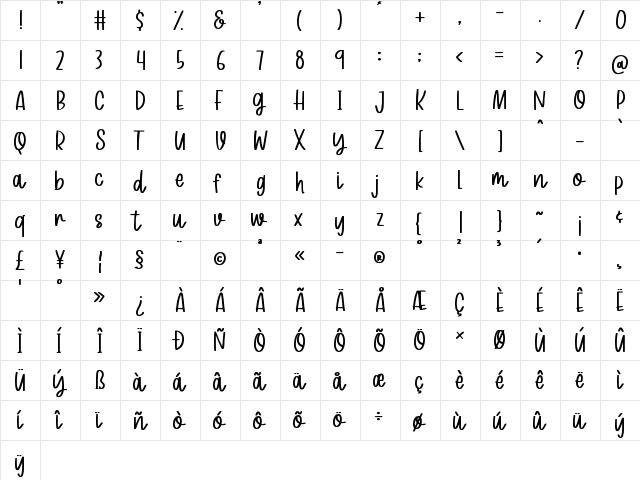
Mango Sticky Regular
| Designer | Dimas Prasetyo |
Design Context for Mango Sticky Typeface
Mango Sticky is a composed and adaptable typeface that performs quietly and consistently across a wide range of design contexts.